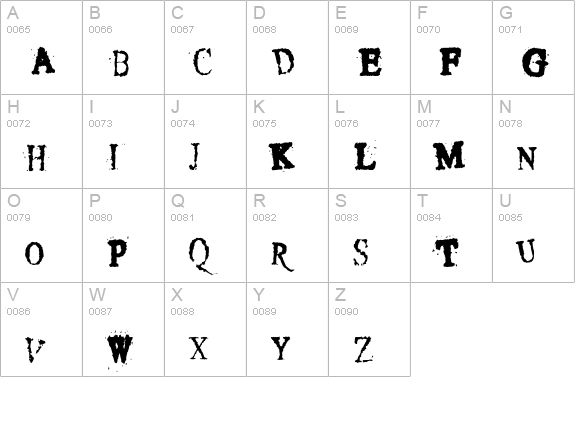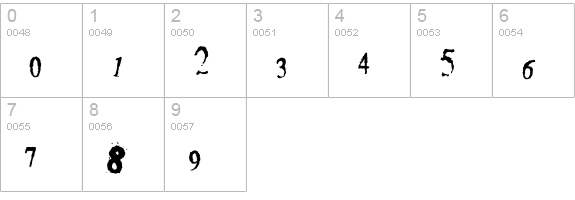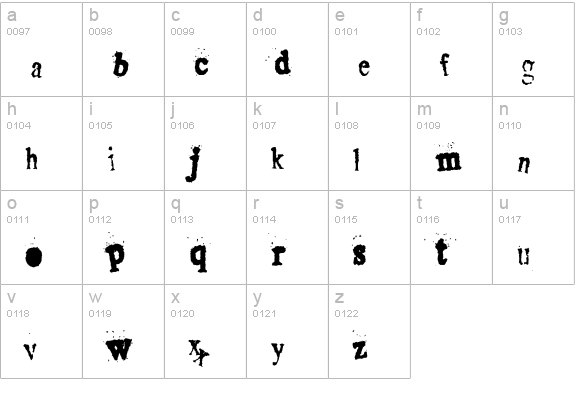
CrustiWacky Font Details
CrustiWacky font is a whimsical and playful typeface that exudes a unique charm and character. With its irregular shapes and quirky details, this font is perfect for adding a touch of fun to your designs. Whether you're working on a children's book, a greeting card, or a poster, CrustiWacky font will bring a sense of whimsy and creativity to your project. Best of all, CrustiWacky font is completely free to download at FontsMarket.com. This means you can access this delightful font without any cost, making it a valuable addition to your font collection. So go ahead and unleash your creativity with CrustiWacky font, and let your imagination run wild with its free-spirited charm.